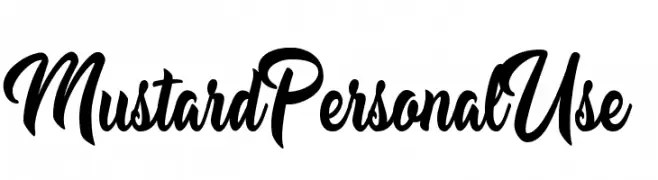
A playful and artistic font with whimsical, irregular letterforms.
A bold, flowing script font with elegant curves and a classic calligraphic style.
A whimsical and decorative font with playful, snowflake-like details.
A playful, handwritten font with a quirky and informal style.
A playful, cartoonish font featuring humorous icons and illustrations.
A bold, decorative font with playful cutout designs and high contrast.
A bold, Art Deco-inspired font with geometric shapes and high contrast.
A bold, modern font with sharp angles and high contrast strokes.
A bold, decorative font with integrated face illustrations in each letter.